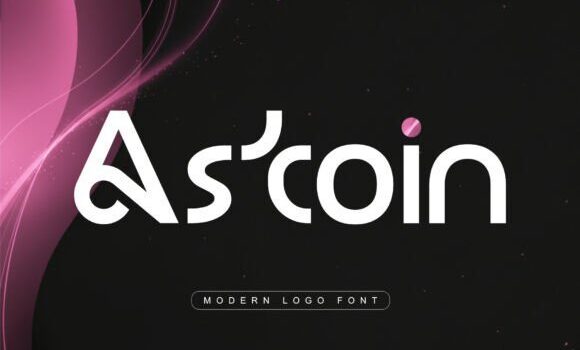
astoin
Astoin Font – Free Download Introduction to Astoin Font Astoin – Modern Futuristic Logo Font Astoin is a futuristic modern logo font that combines geometric precision with sleek minimalism. 📸 Preview Gallery 6 images 📌 Product Name Astoin Font 👤